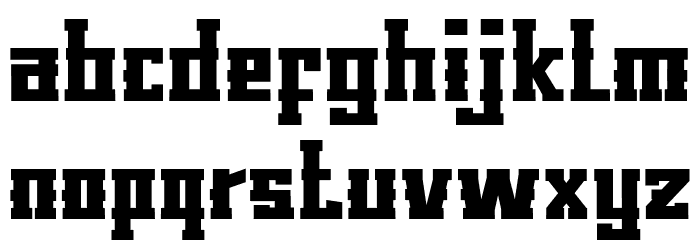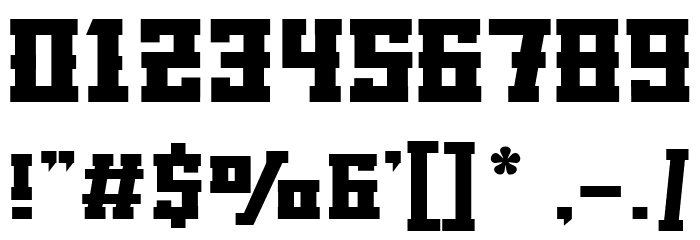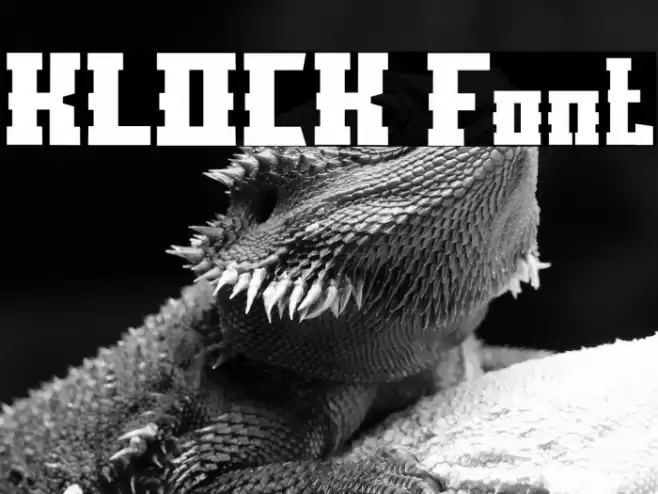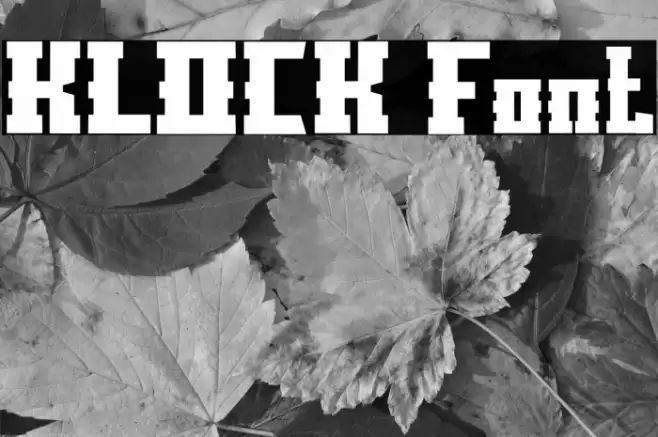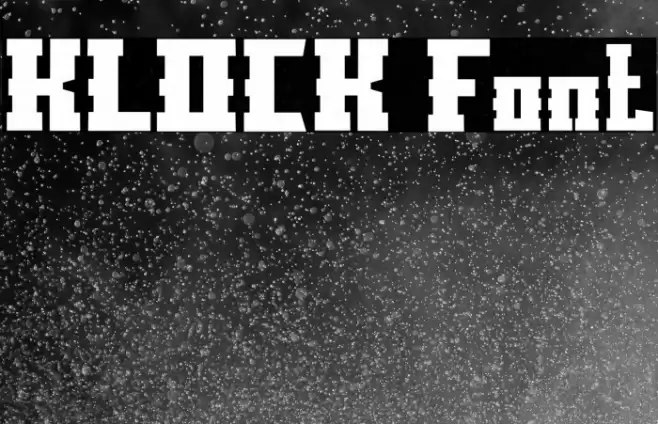
KLOCK Font
This font features a bold, blocky design with a distinct geometric style. The characters are constructed with sharp angles and straight lines, giving it a strong, industrial feel. The uppercase and lowercase letters maintain a consistent width, creating a uniform appearance. The numbers and special characters follow the same robust design, ensuring cohesion across all elements. This font's unique style makes it stand out, ideal for projects that require a bold statement.
A bold, geometric font with a strong, industrial aesthetic.
- Proposed Projects: Ideal for posters, logos, video game graphics, and any design requiring a bold, impactful typeface.